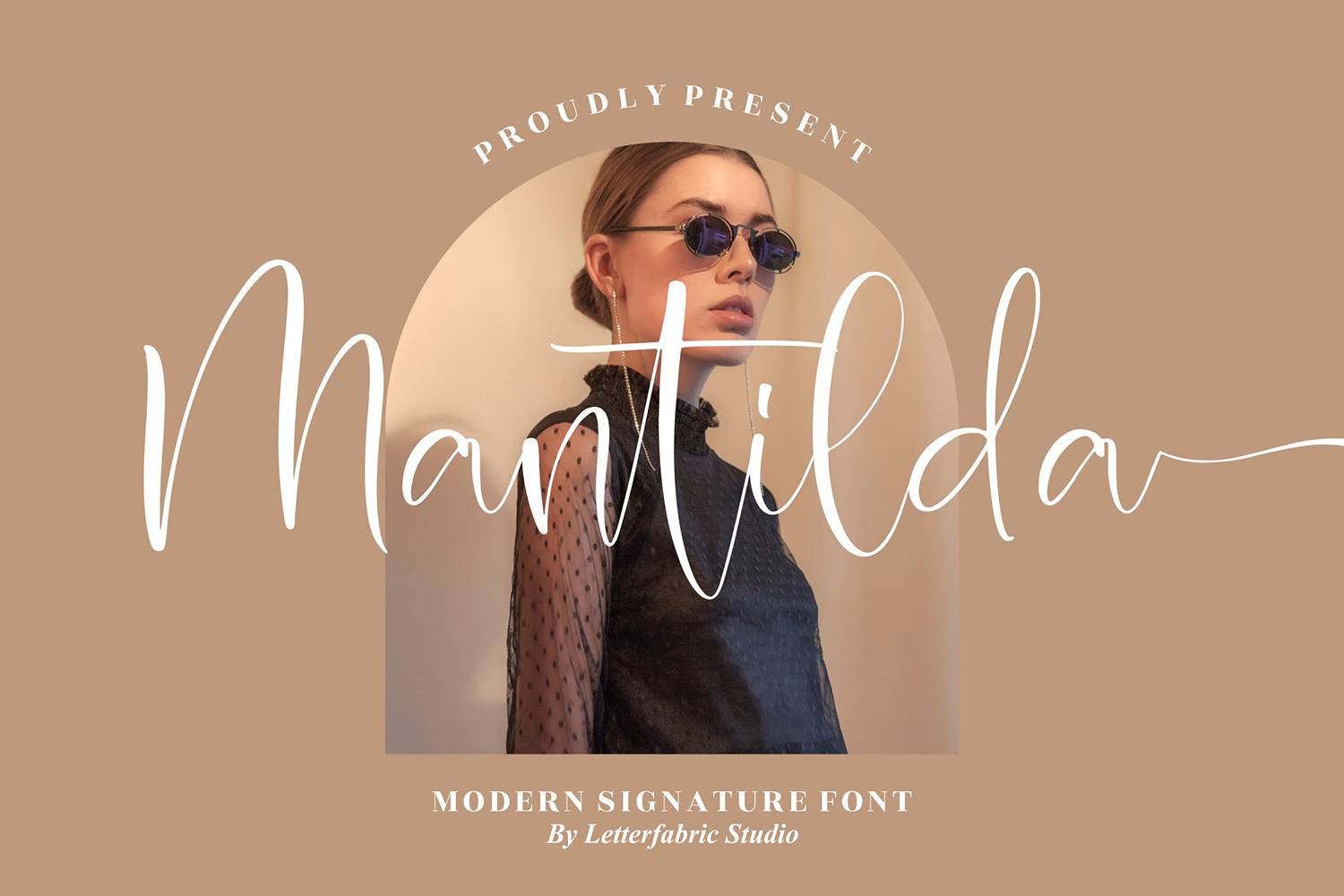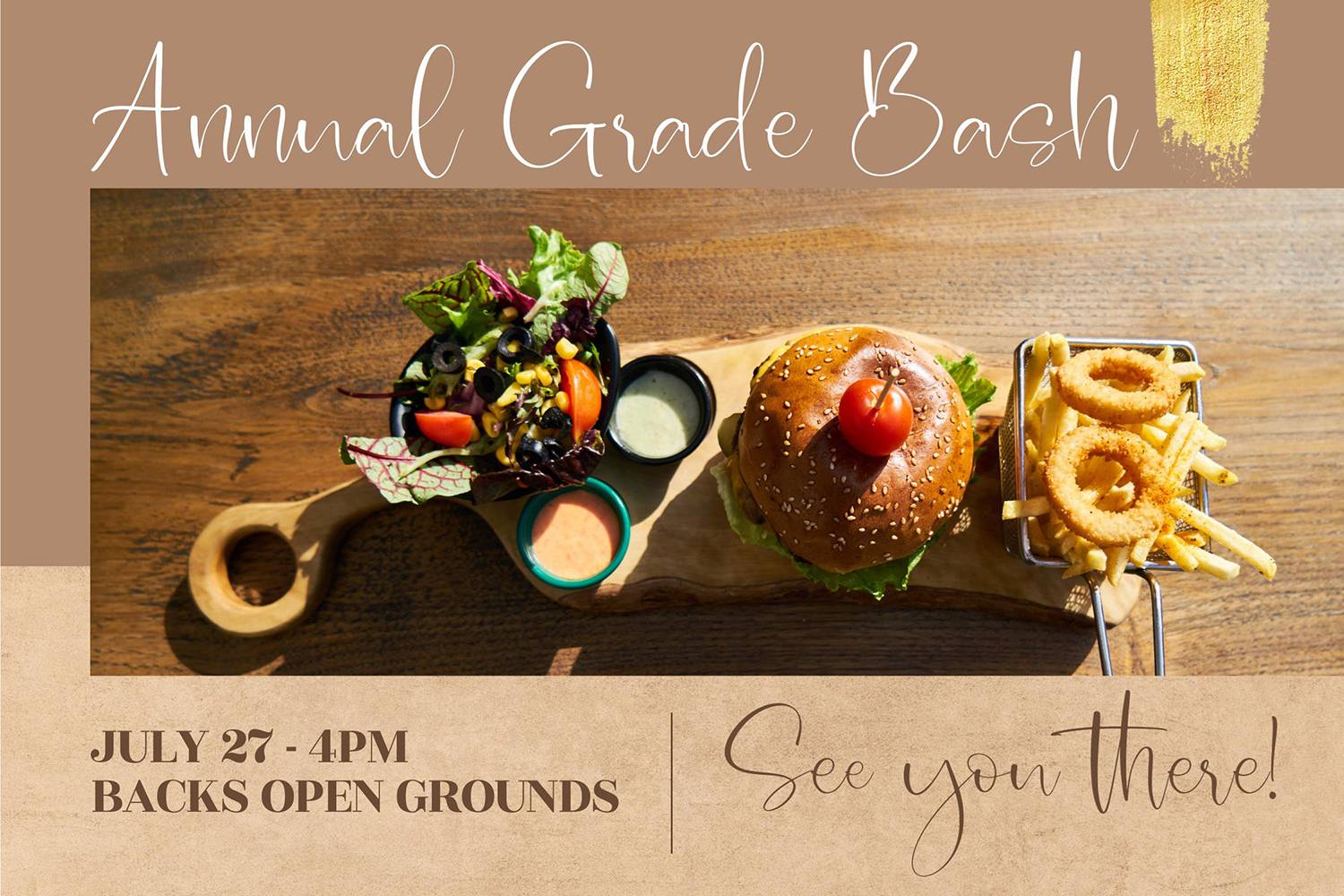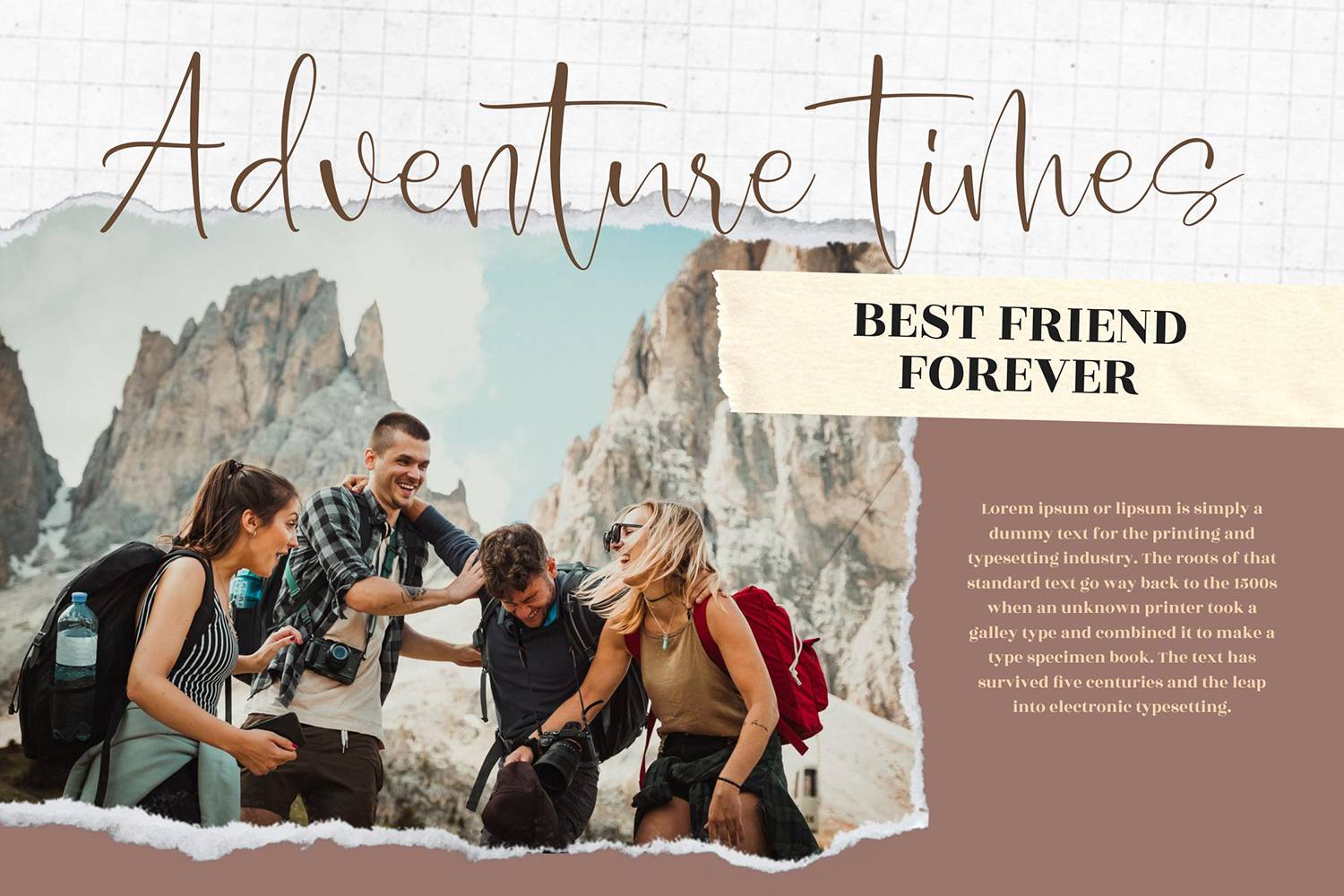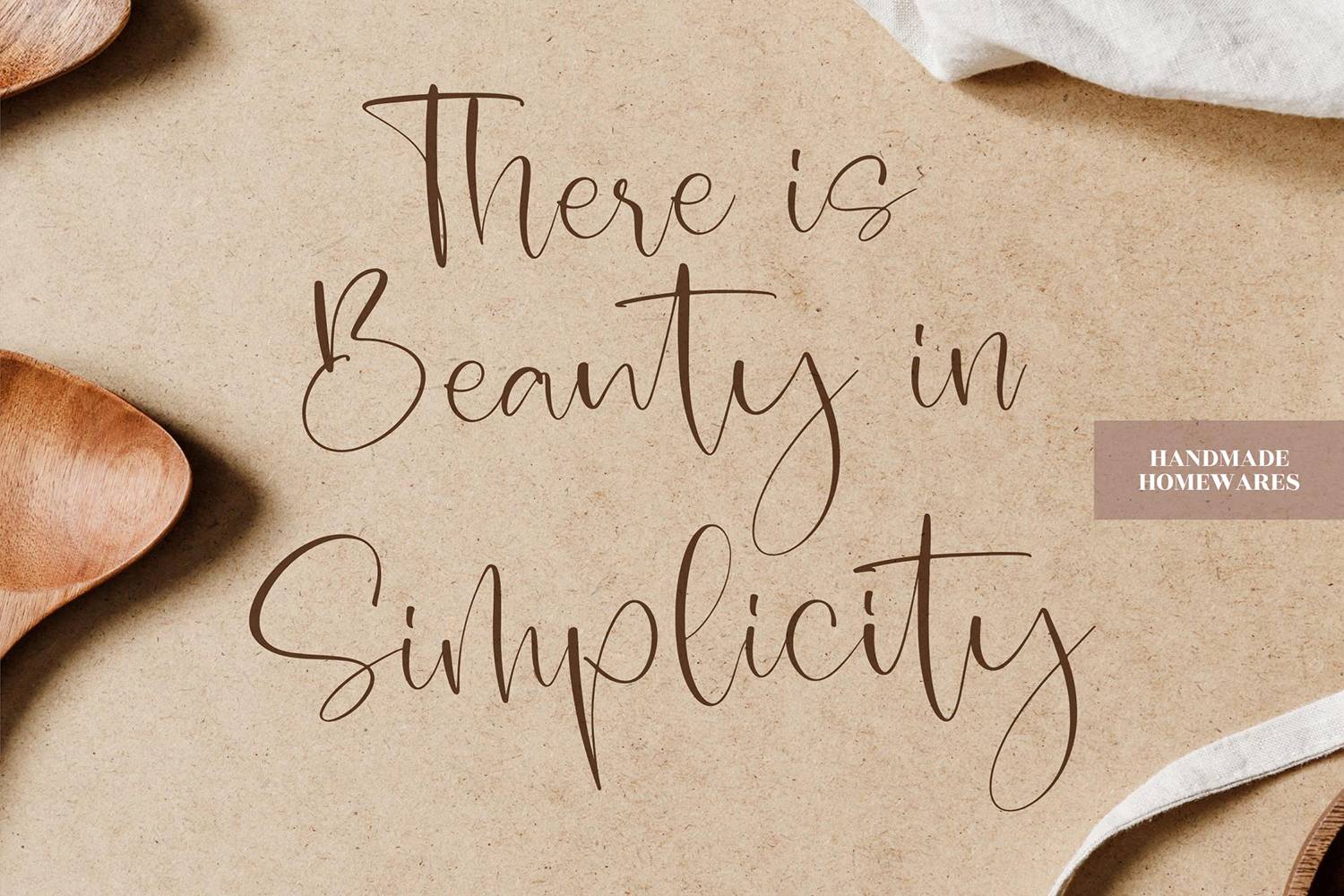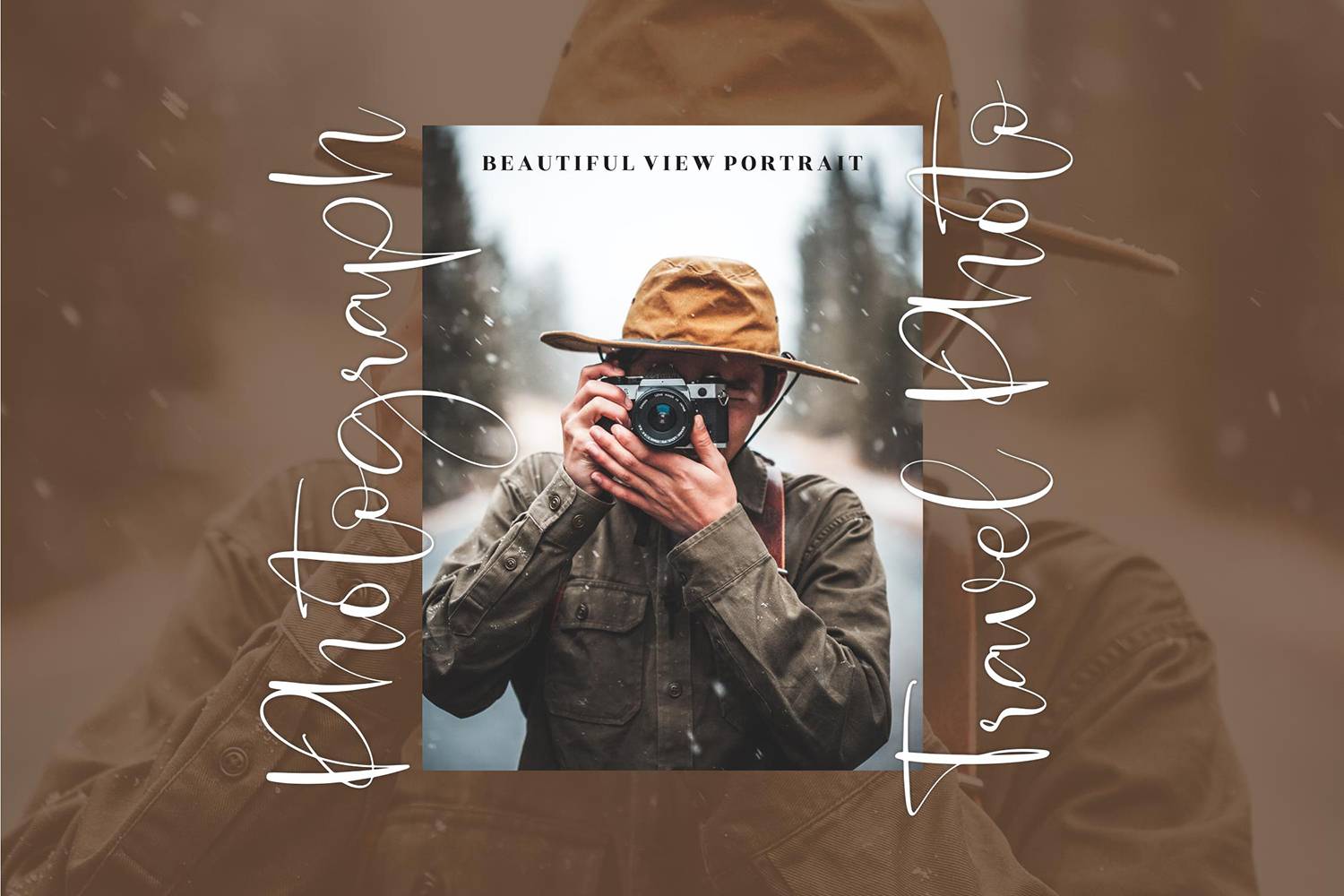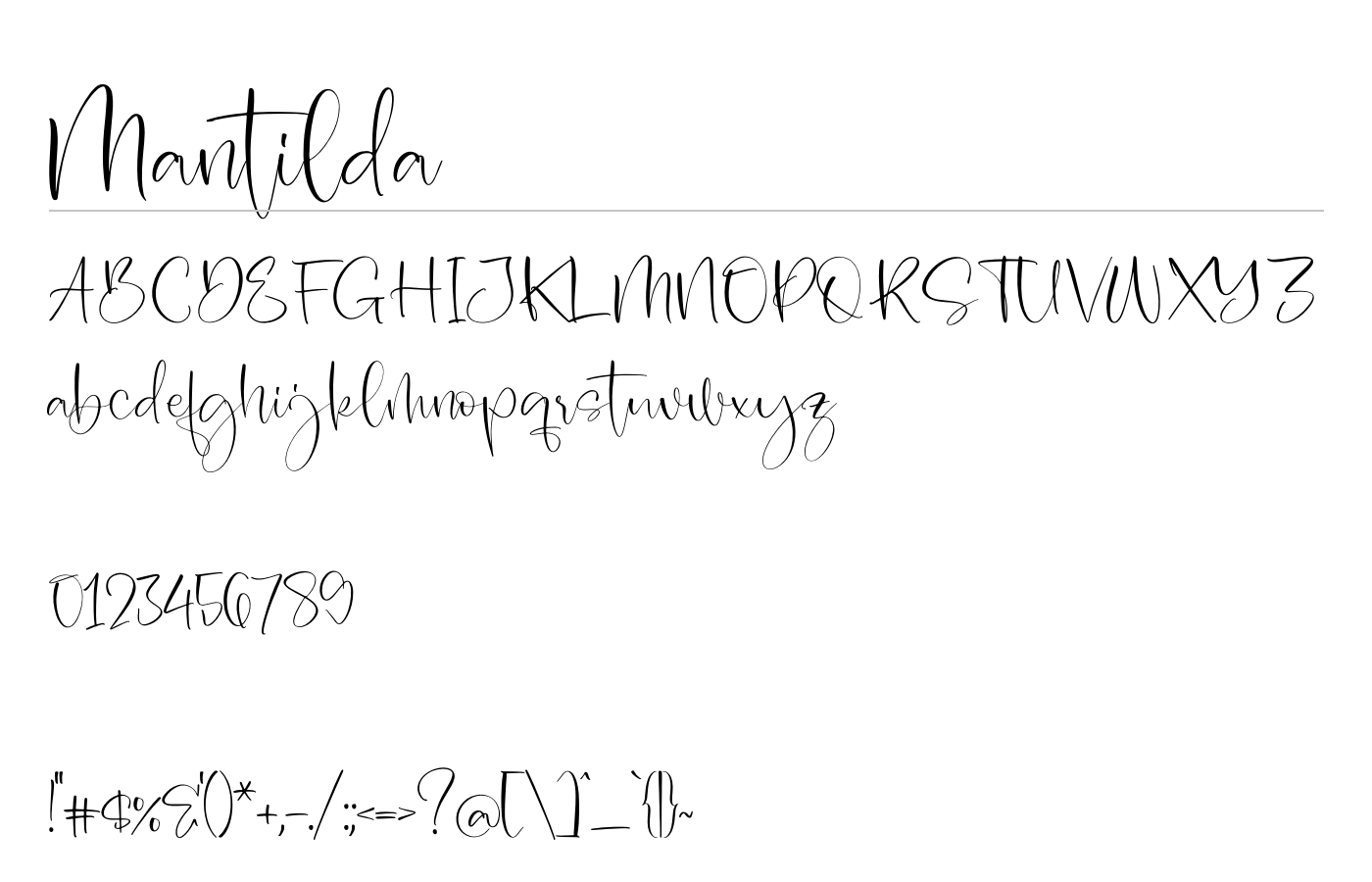
Mantilda is a delicate and elegant script font with a handwritten, calligraphic feel, featuring tall, slender letterforms and graceful, flowing strokes. Its light weight and playful loops make it ideal for feminine branding, invitations, and artistic projects that require a personal, stylish touch. This font works best in logos or headlines where its charming, airy style can shine without sacrificing readability.
Mantilda Font
About Mantilda Font